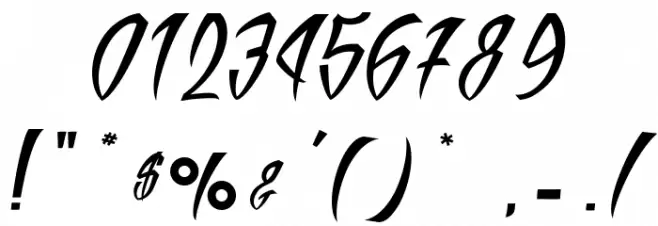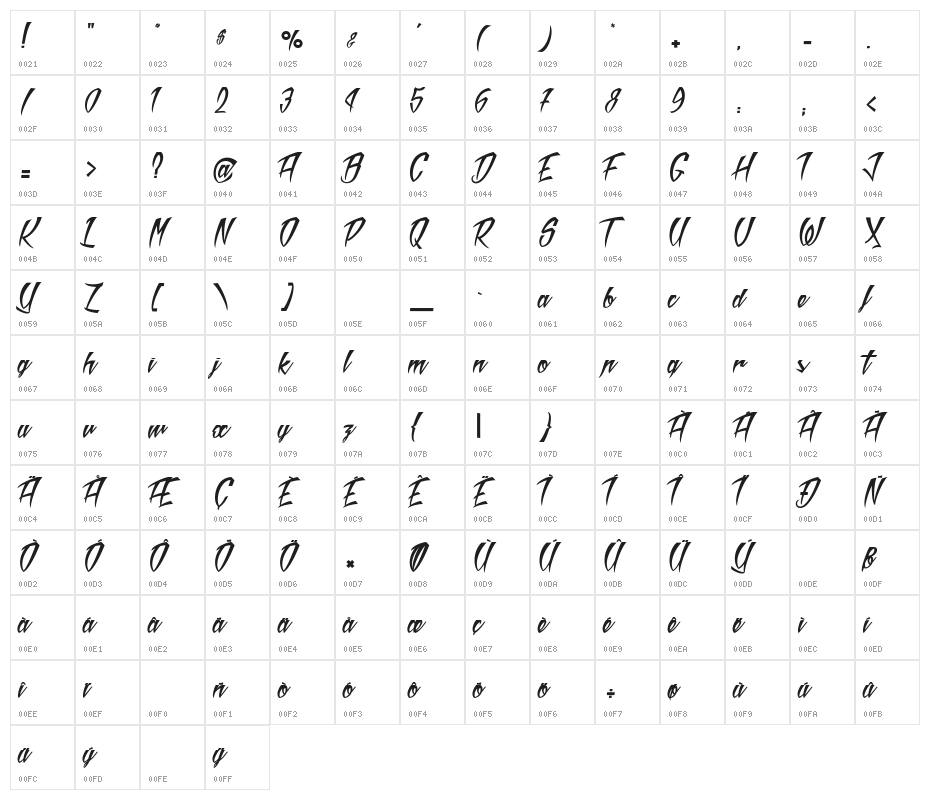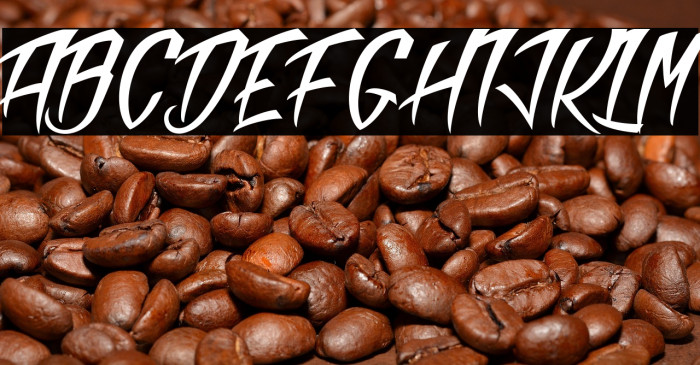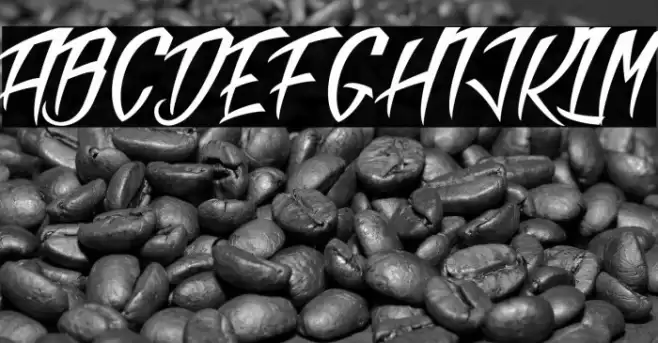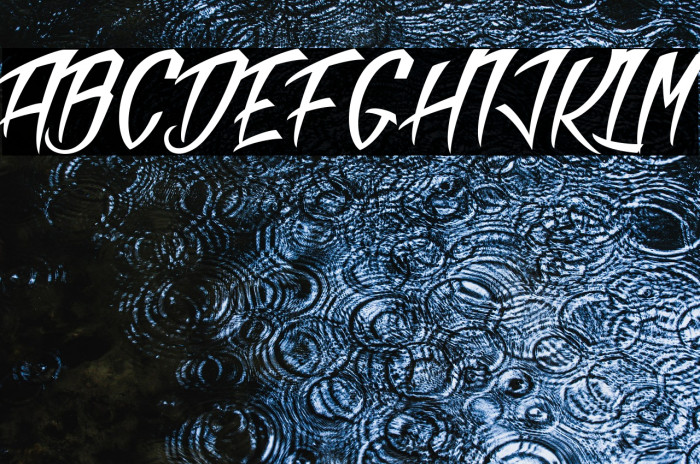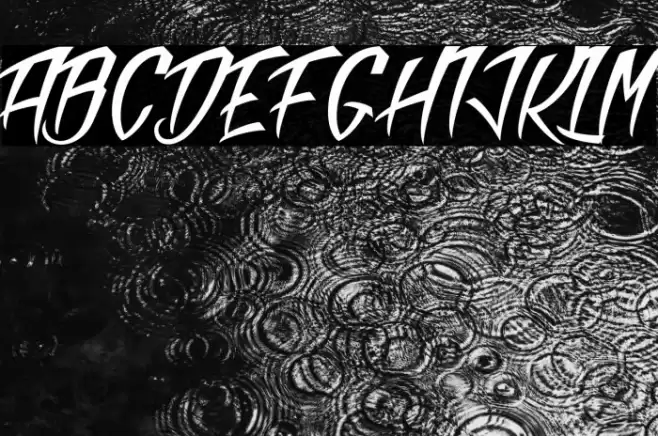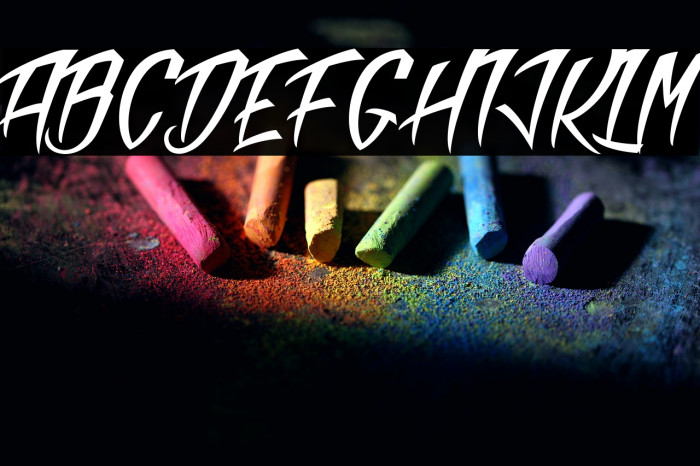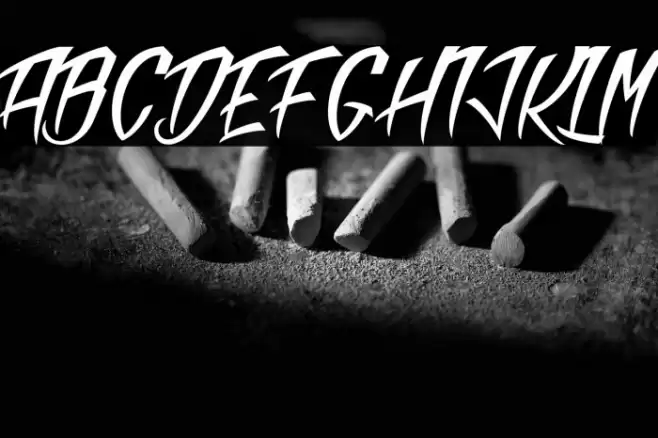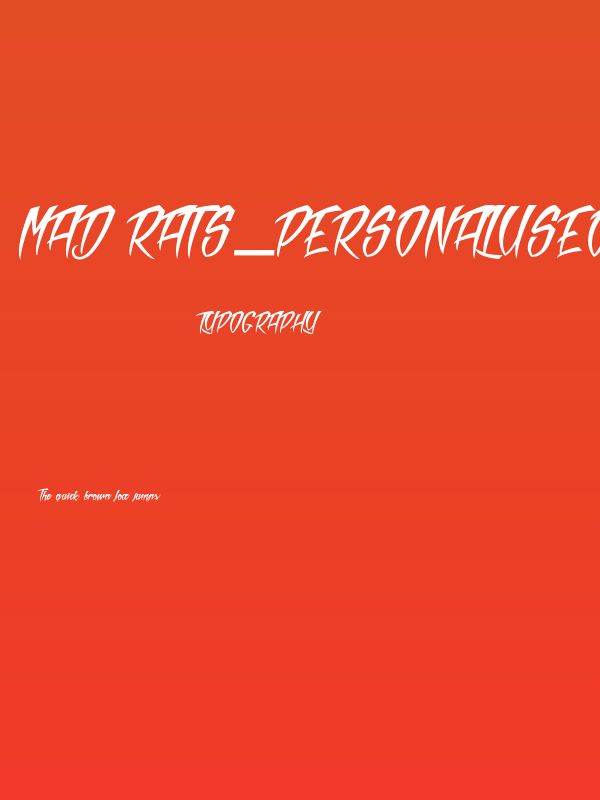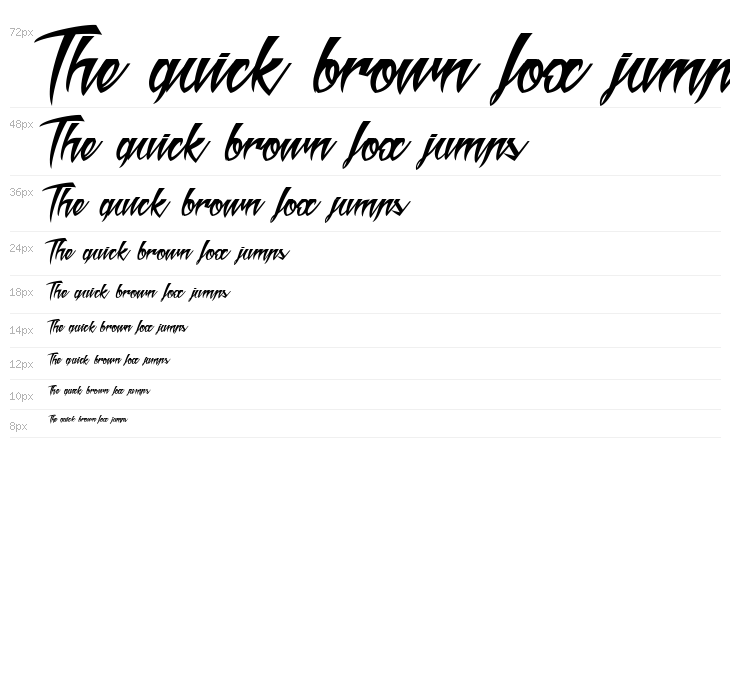
Mad Rats_PersonalUseOnly Font
Mad Rats_PersonalUseOnly Description
This font features a bold and dynamic script style with sharp, angular strokes that give it a sense of movement and energy. The uppercase letters are particularly striking, with exaggerated curves and pointed edges that create a dramatic effect. The lowercase letters maintain a consistent flow, complementing the uppercase with their own unique flair. Numbers and special characters are designed with the same attention to detail, ensuring a cohesive look across all elements. This font's high contrast and distinctive style make it stand out, perfect for projects that require a bold statement.